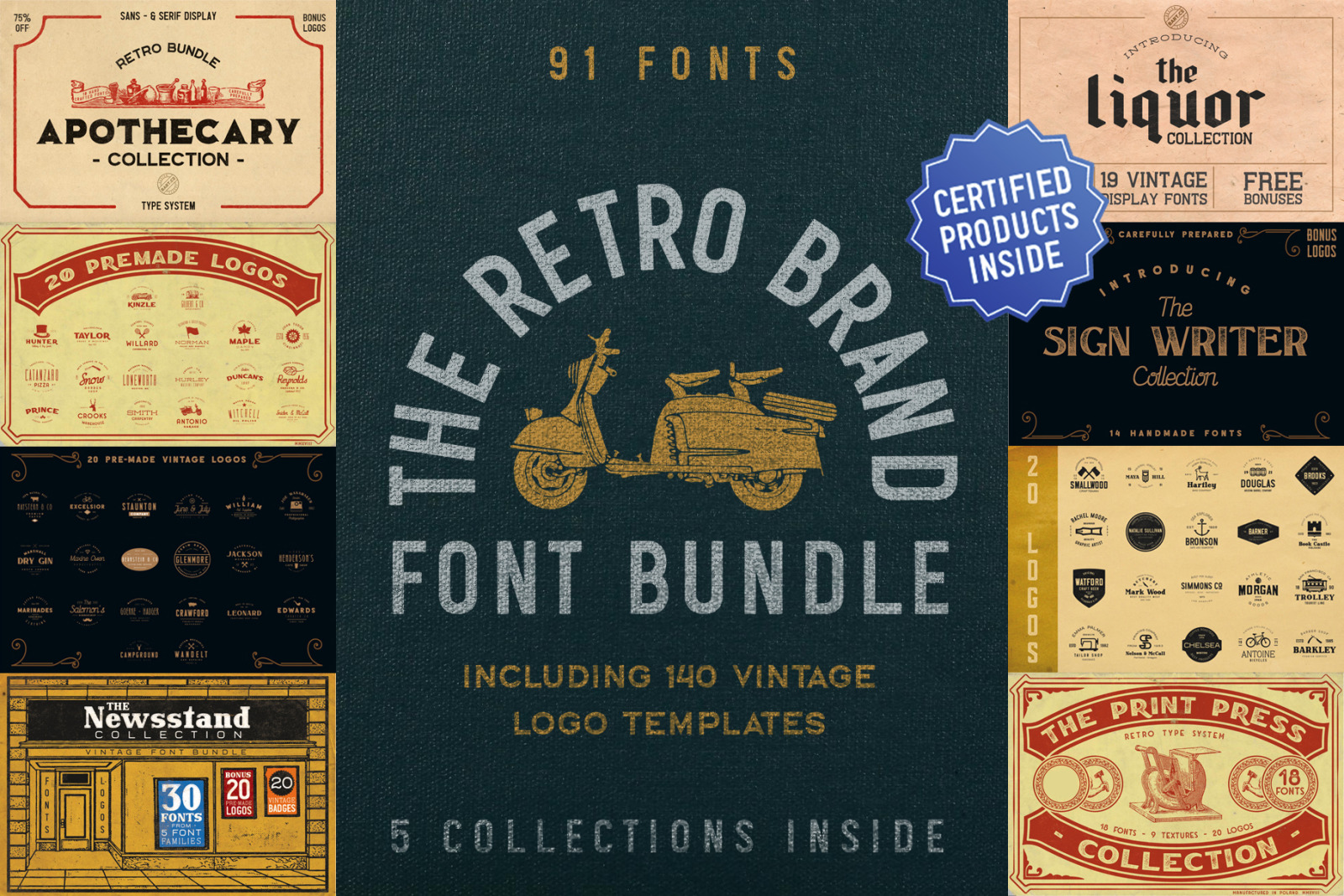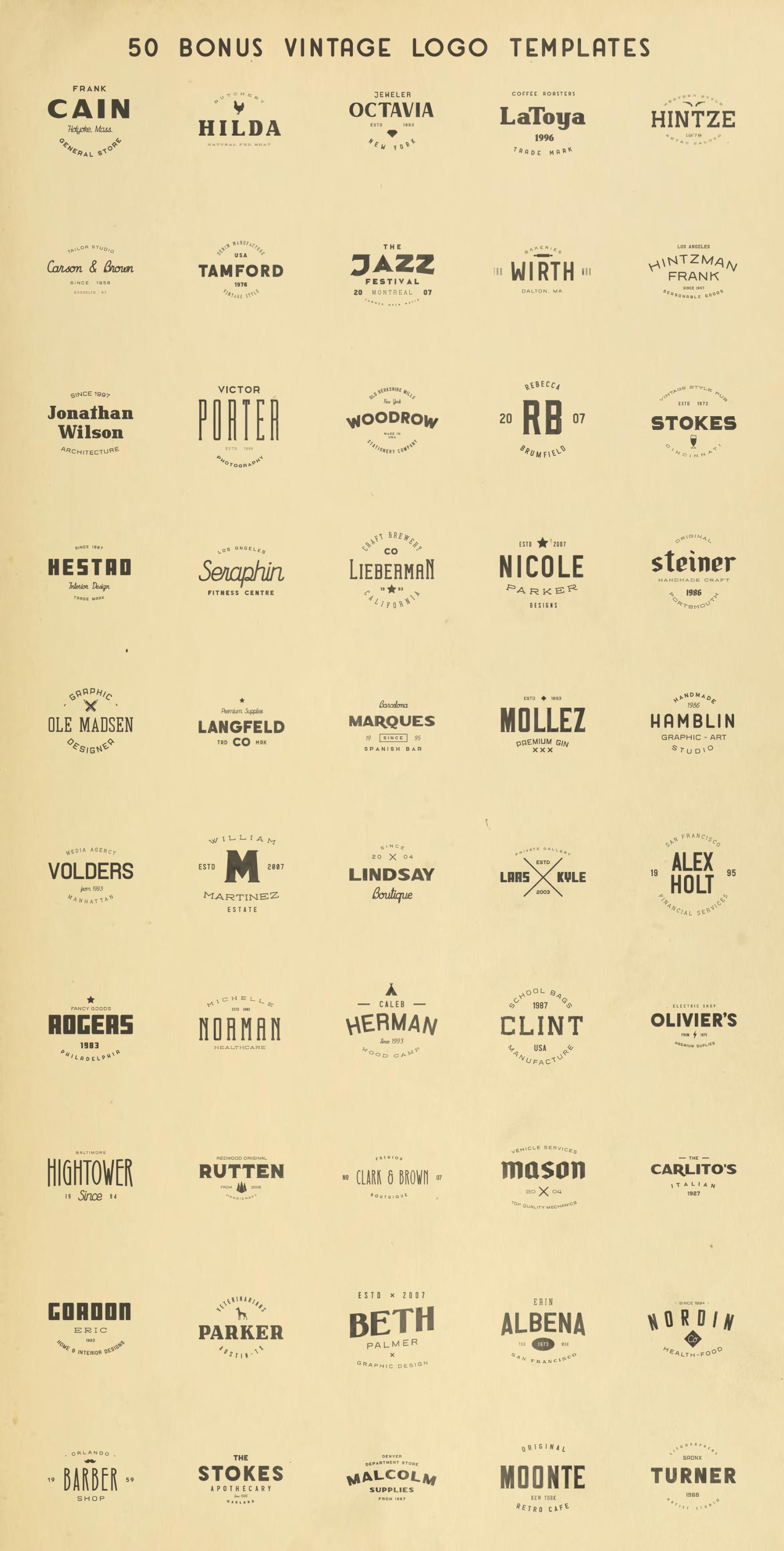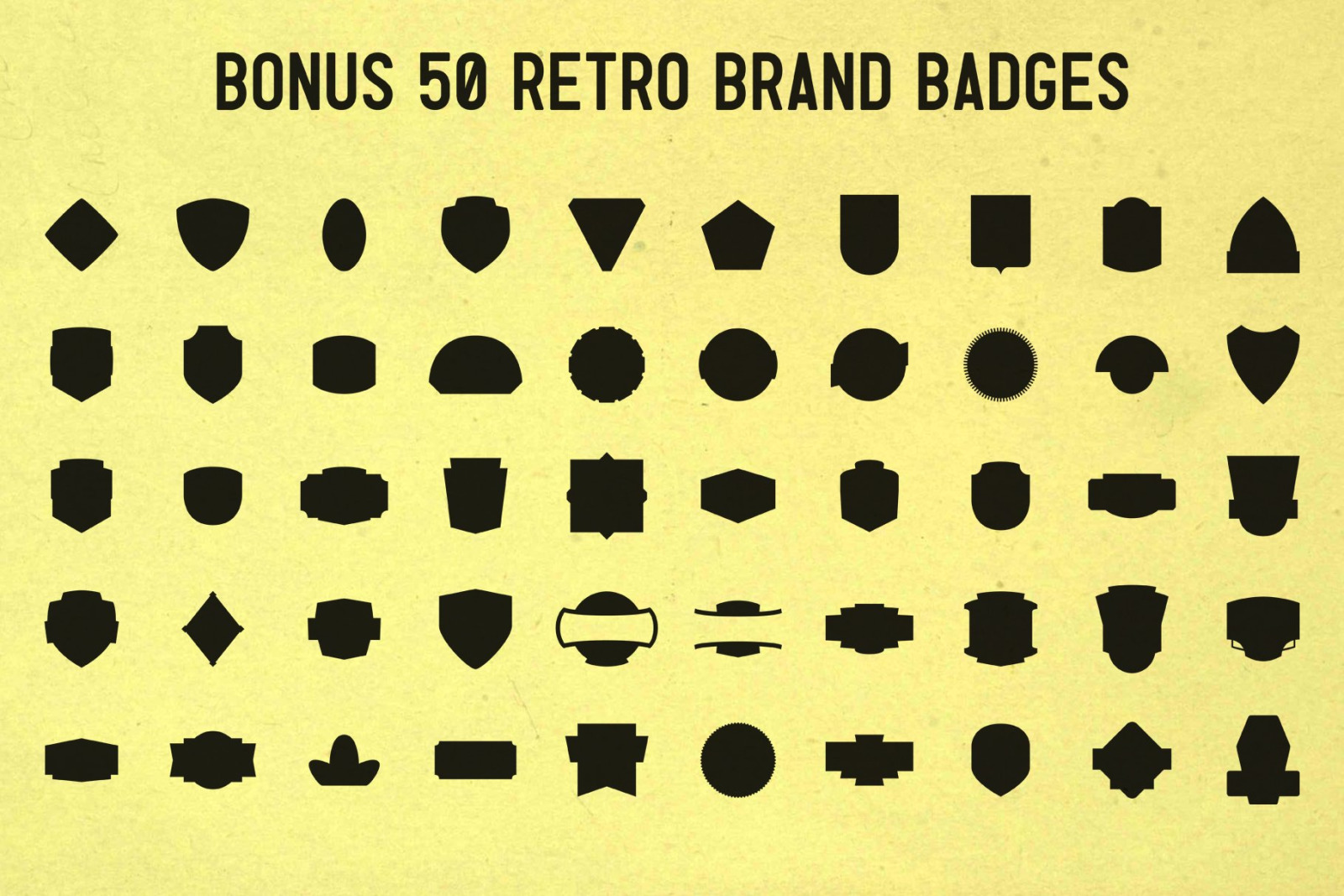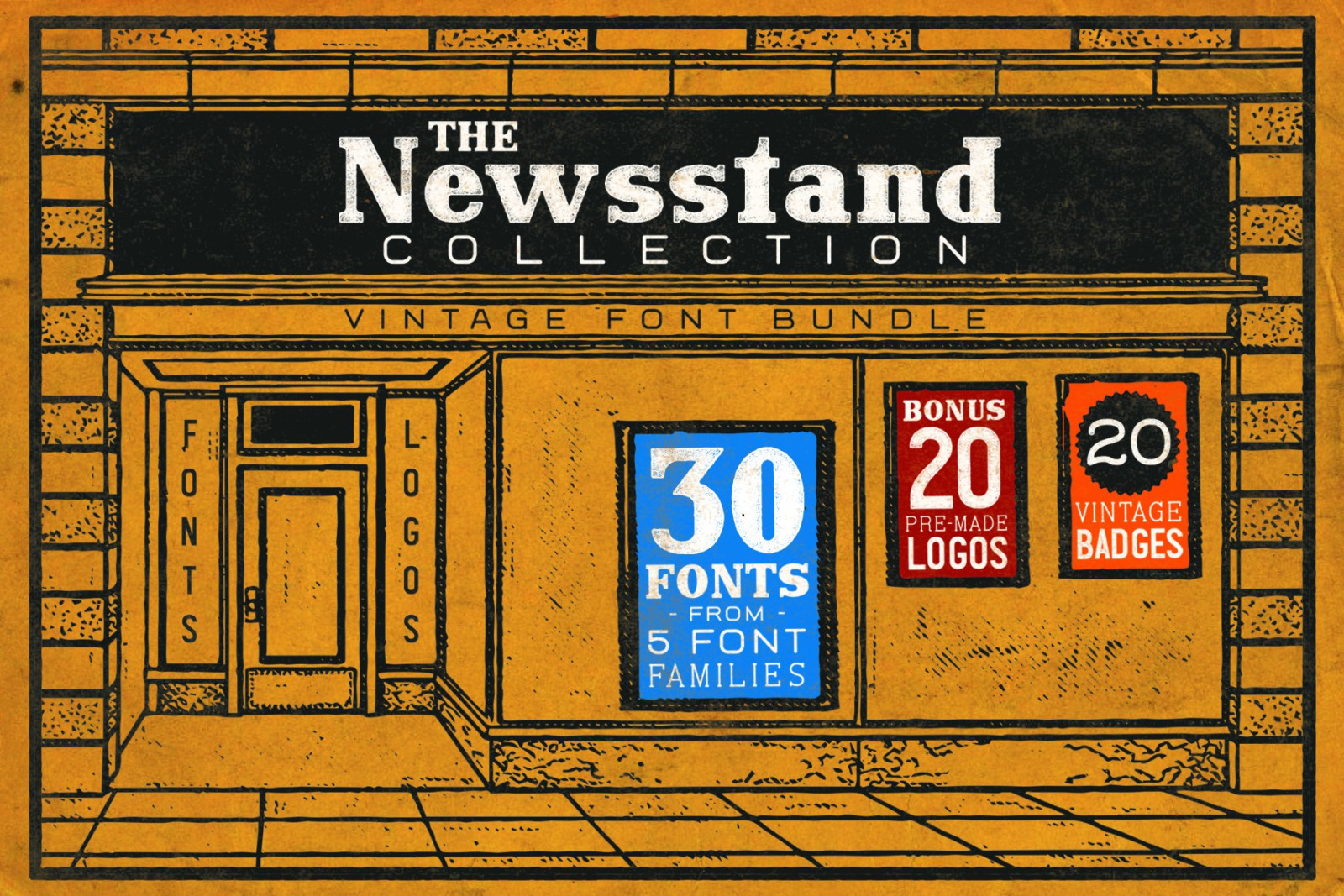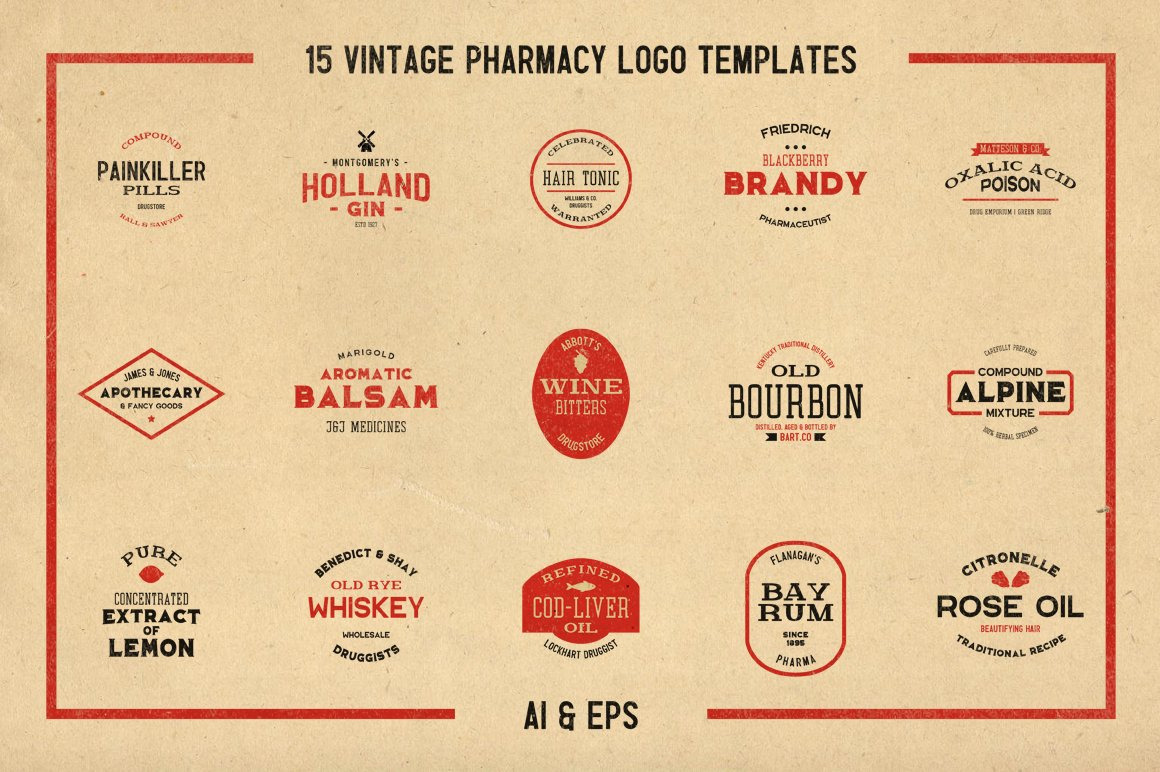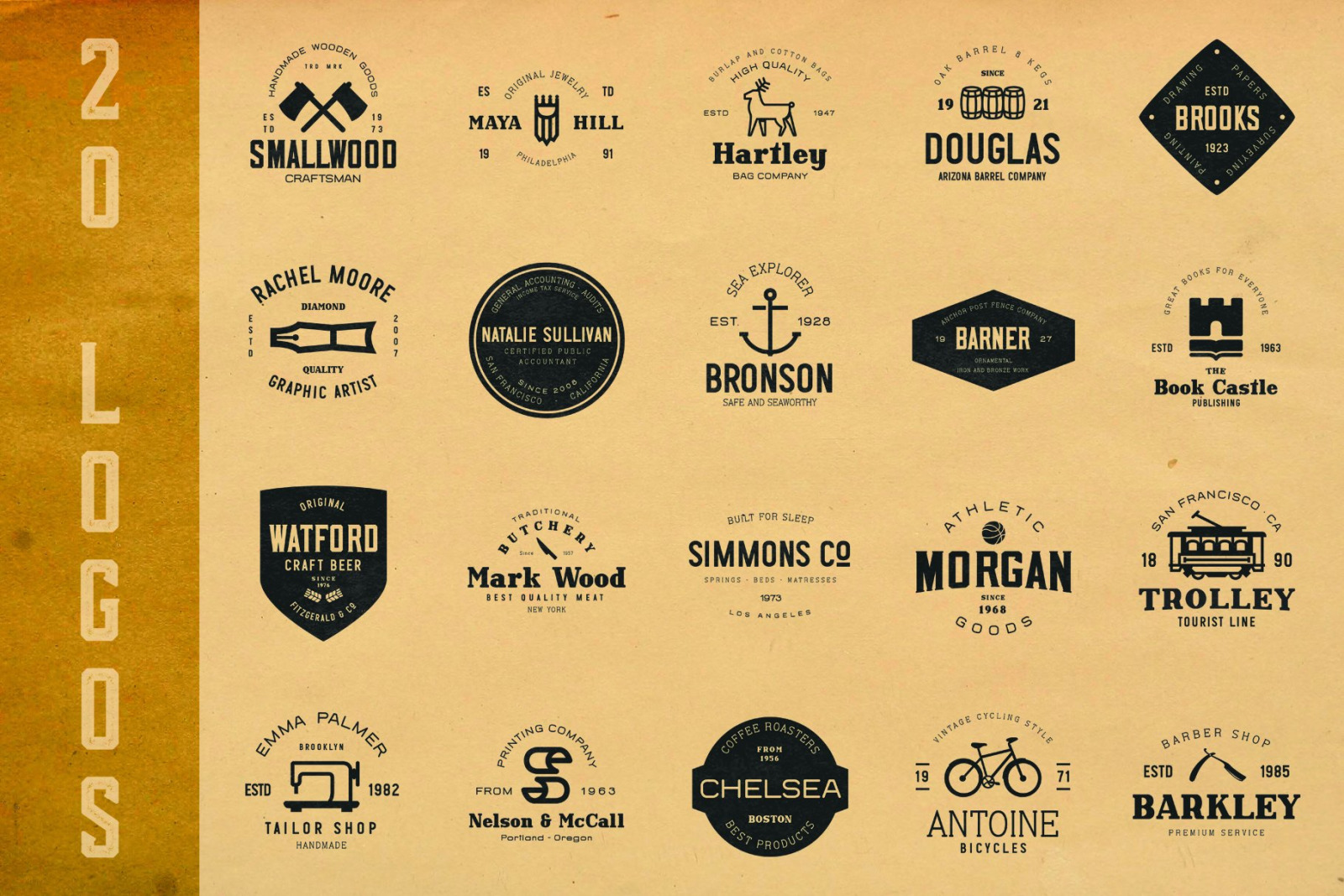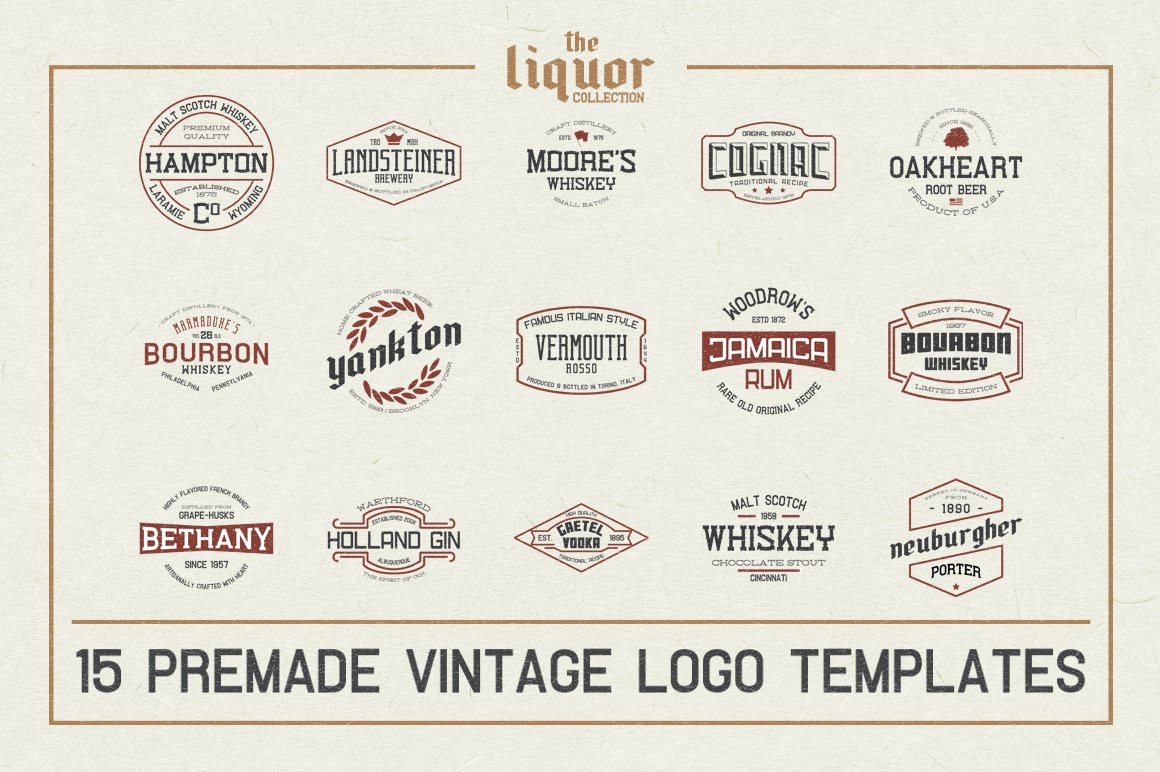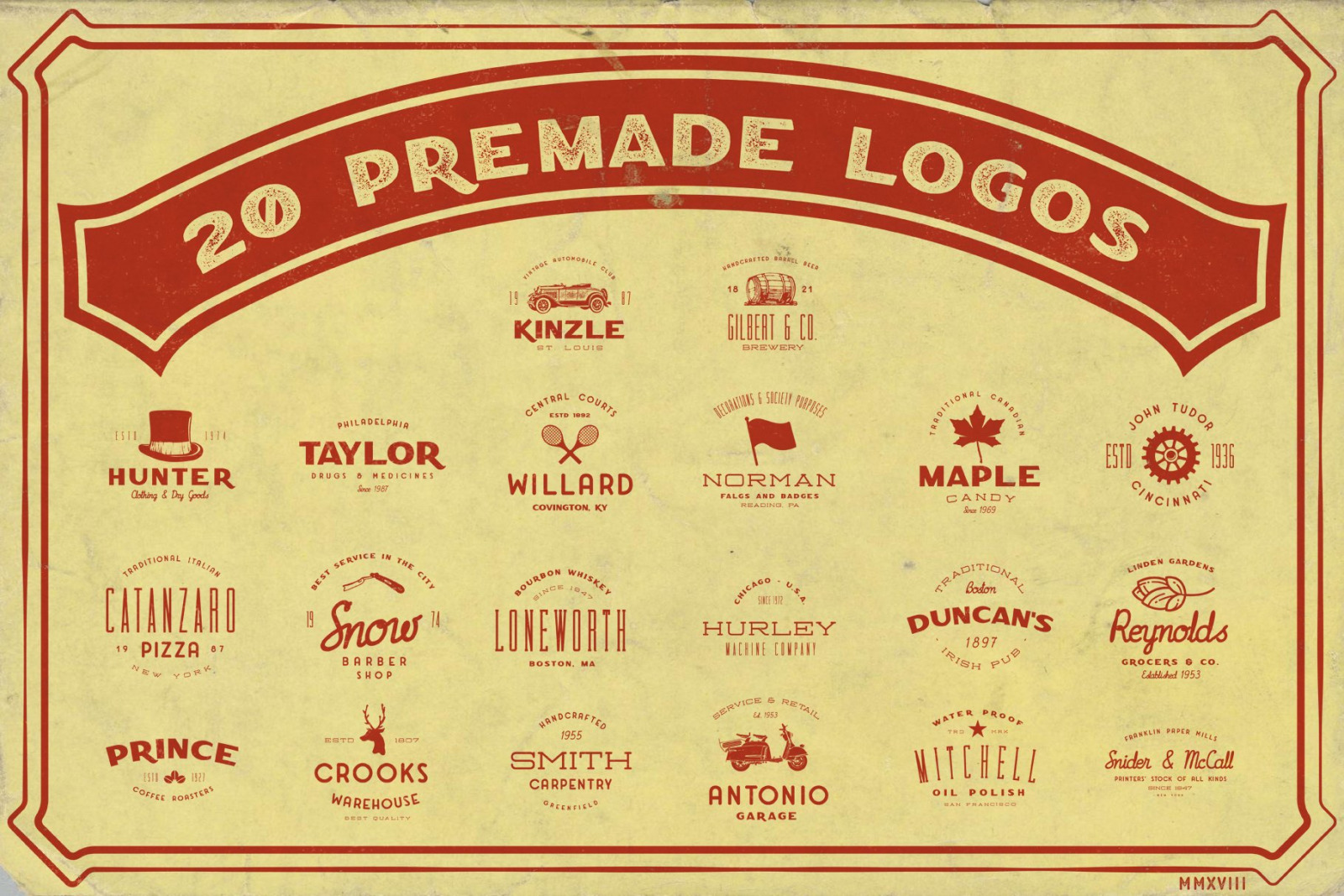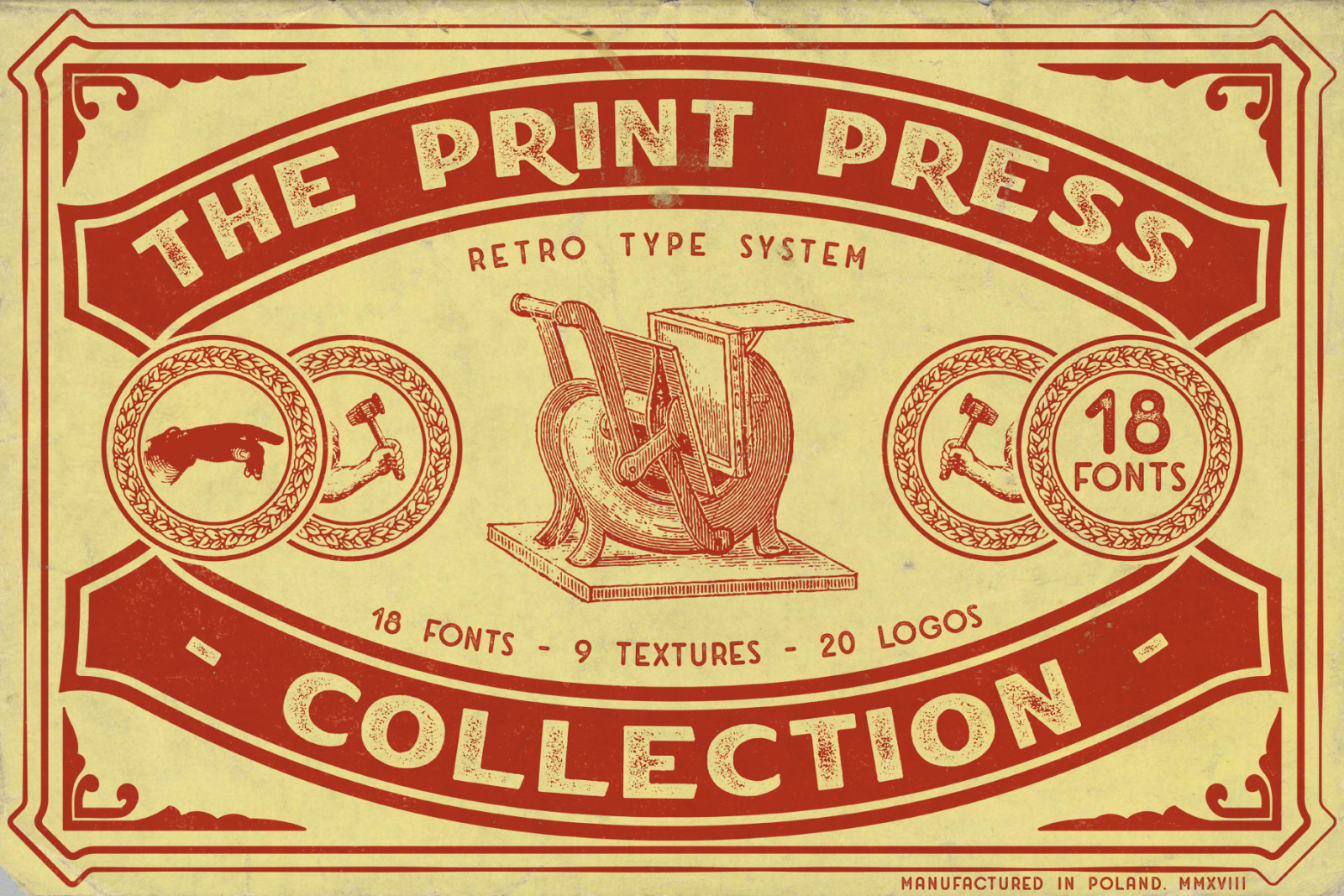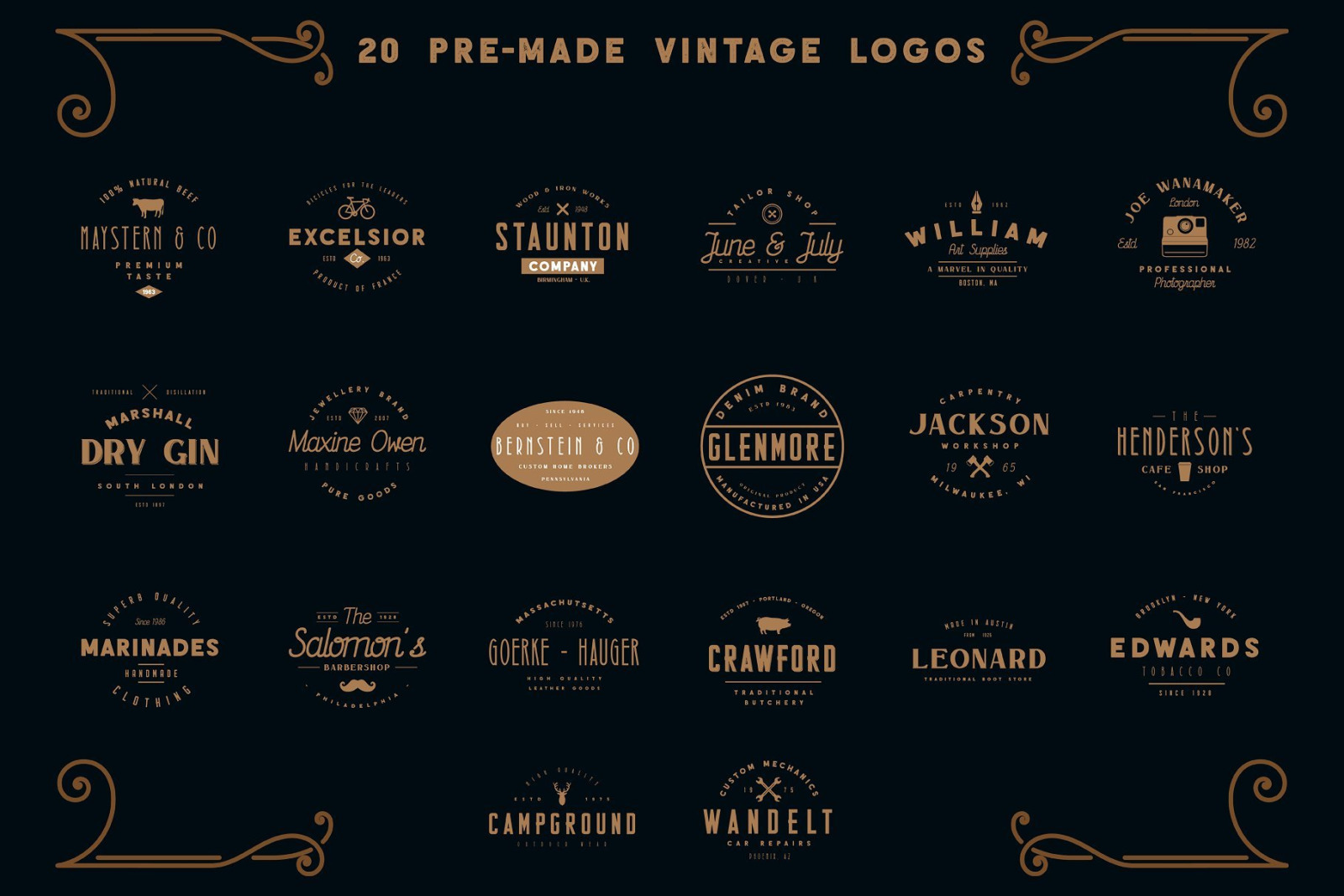
The Retro Brand Font Bundle
This pack includes all my 5 font collections I've ever created + 50 unique logo templates based on these fonts. The Retro Brand Font Bundle have a great selection of different font styles, you are sure to find what you need. This pack is perfect for vintage branding designs and other retro style projects!
5 Collections included:
- The Apothecary Collection
- The Liquor Collection
- The Newsstand Collection
- The Sign Writer Collection
- The Print Press Collection
In all collections you can find awesome bonuses like: logo templates, badges and textures!!!
In general: 91 fonts + 140 logo templates + some other stuff!!!
Most of the font have a language support:
ÀÁÂÃÄÅÇÐÈÉÊËÌÍÎÏÑØÒÓÔÕÖÙÜÚÛÝŸÆßÞ